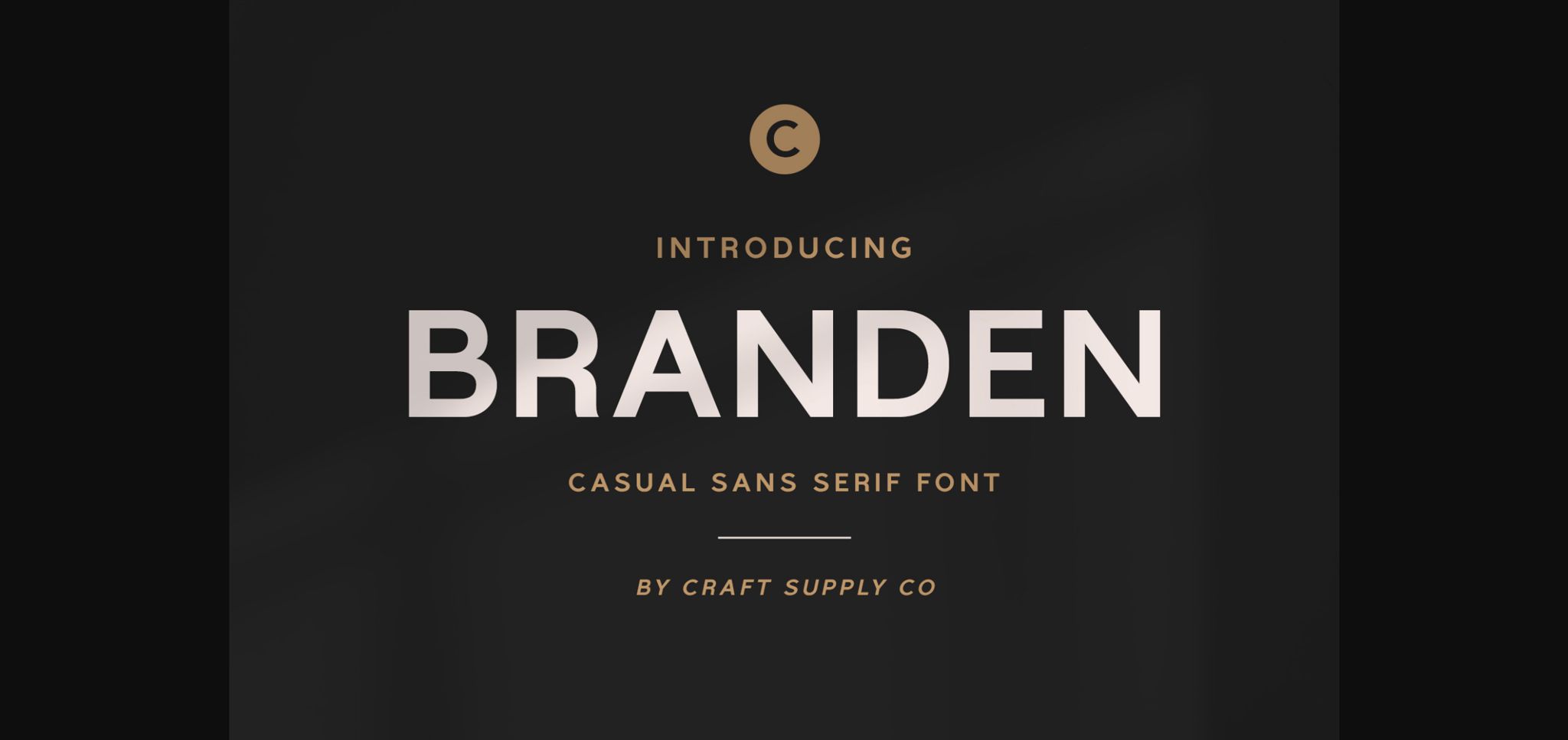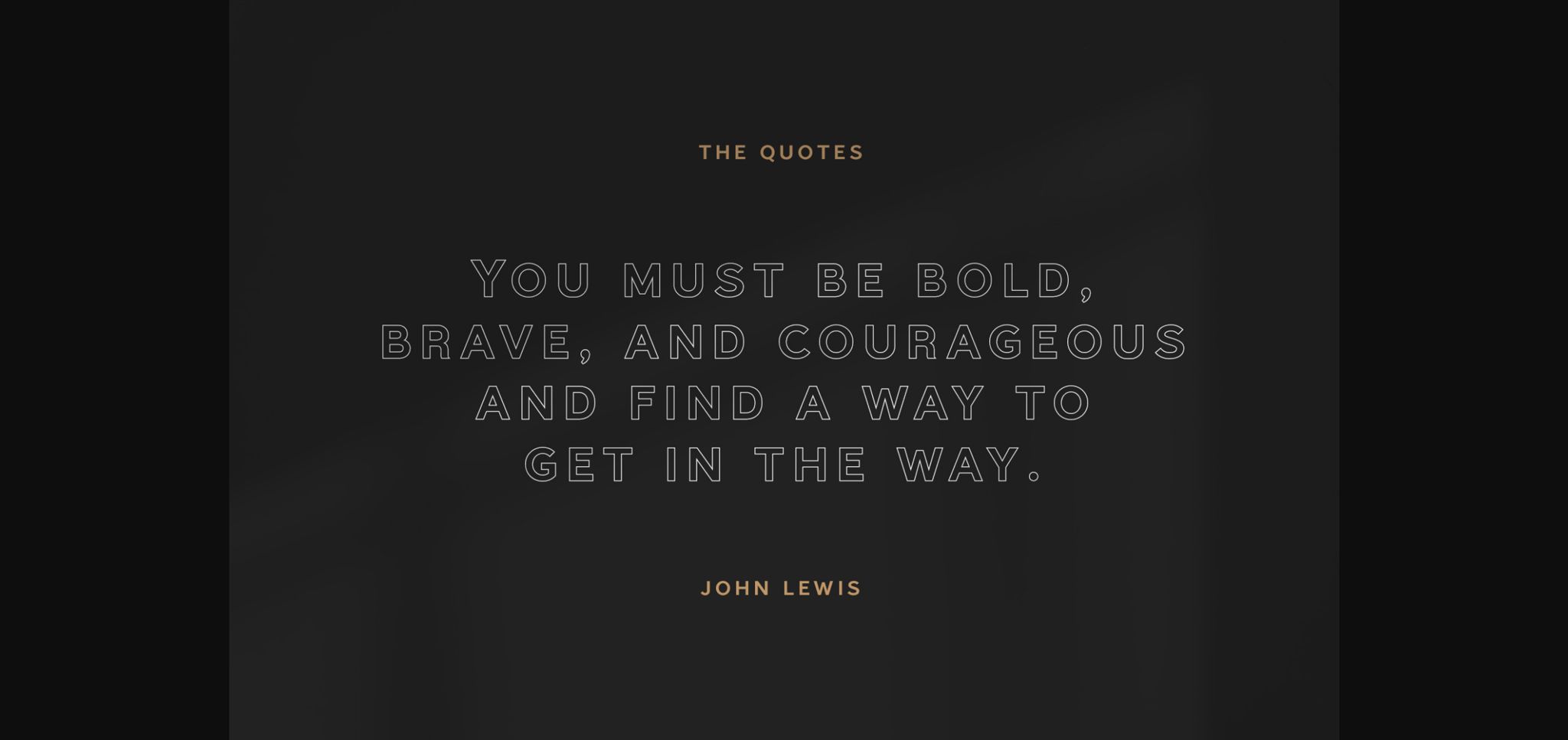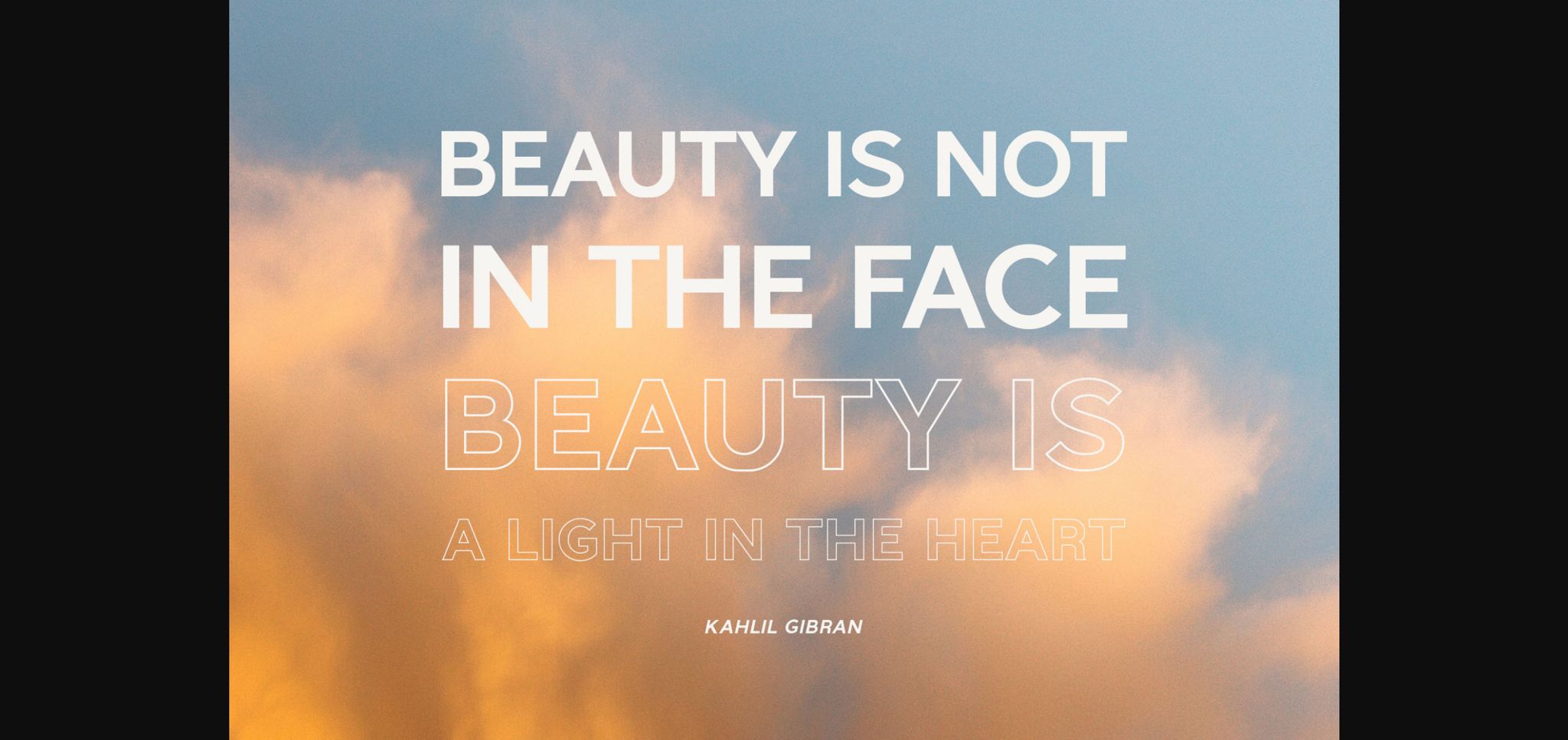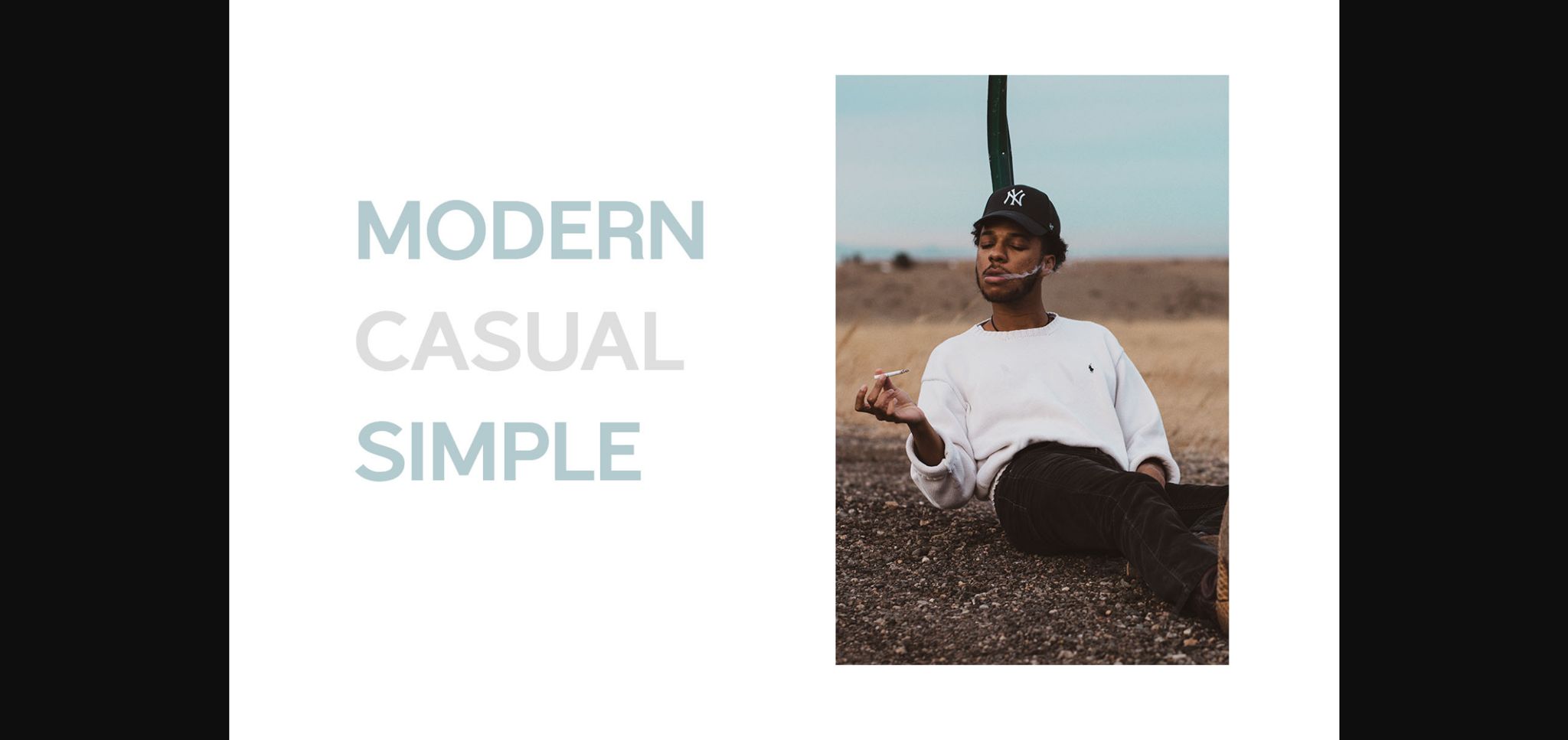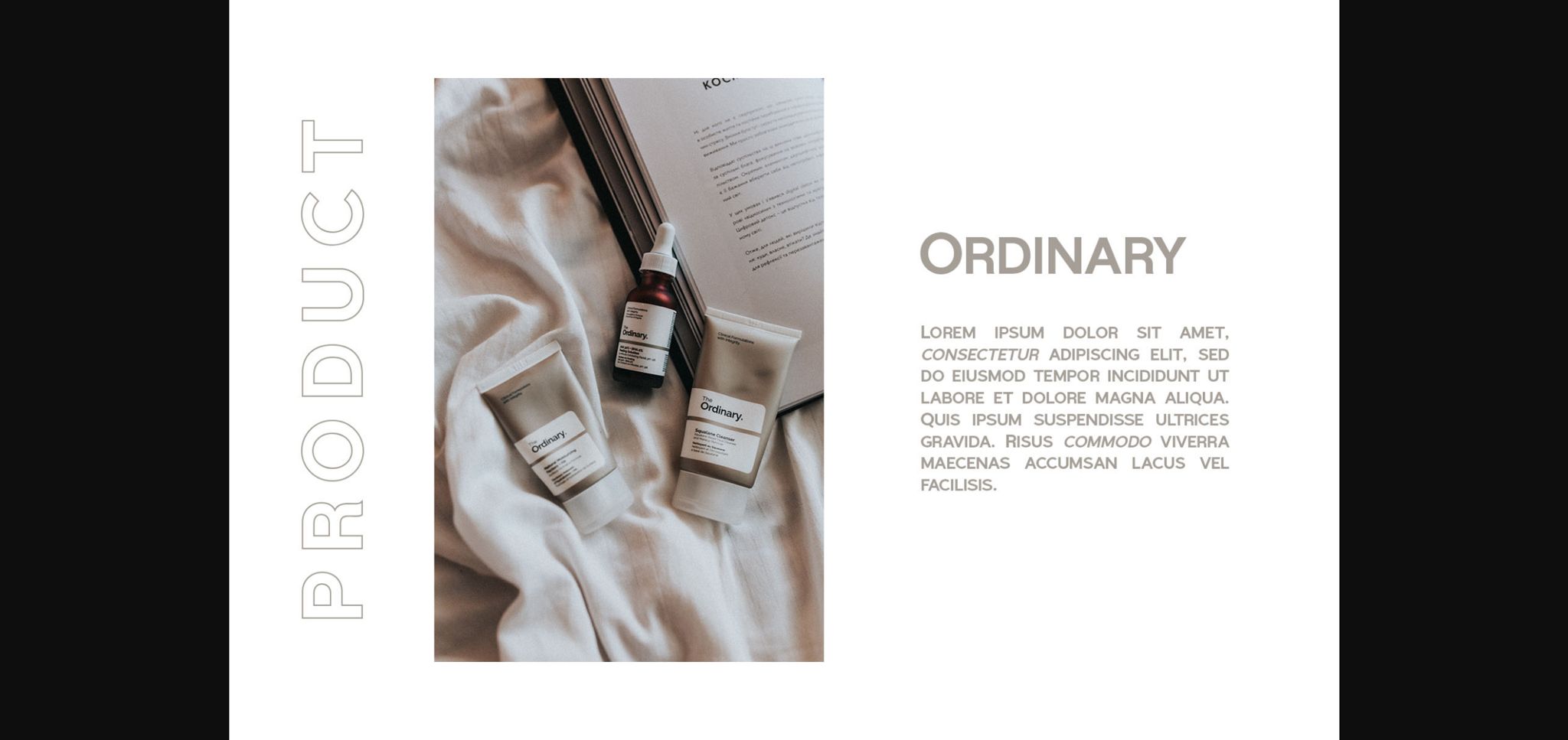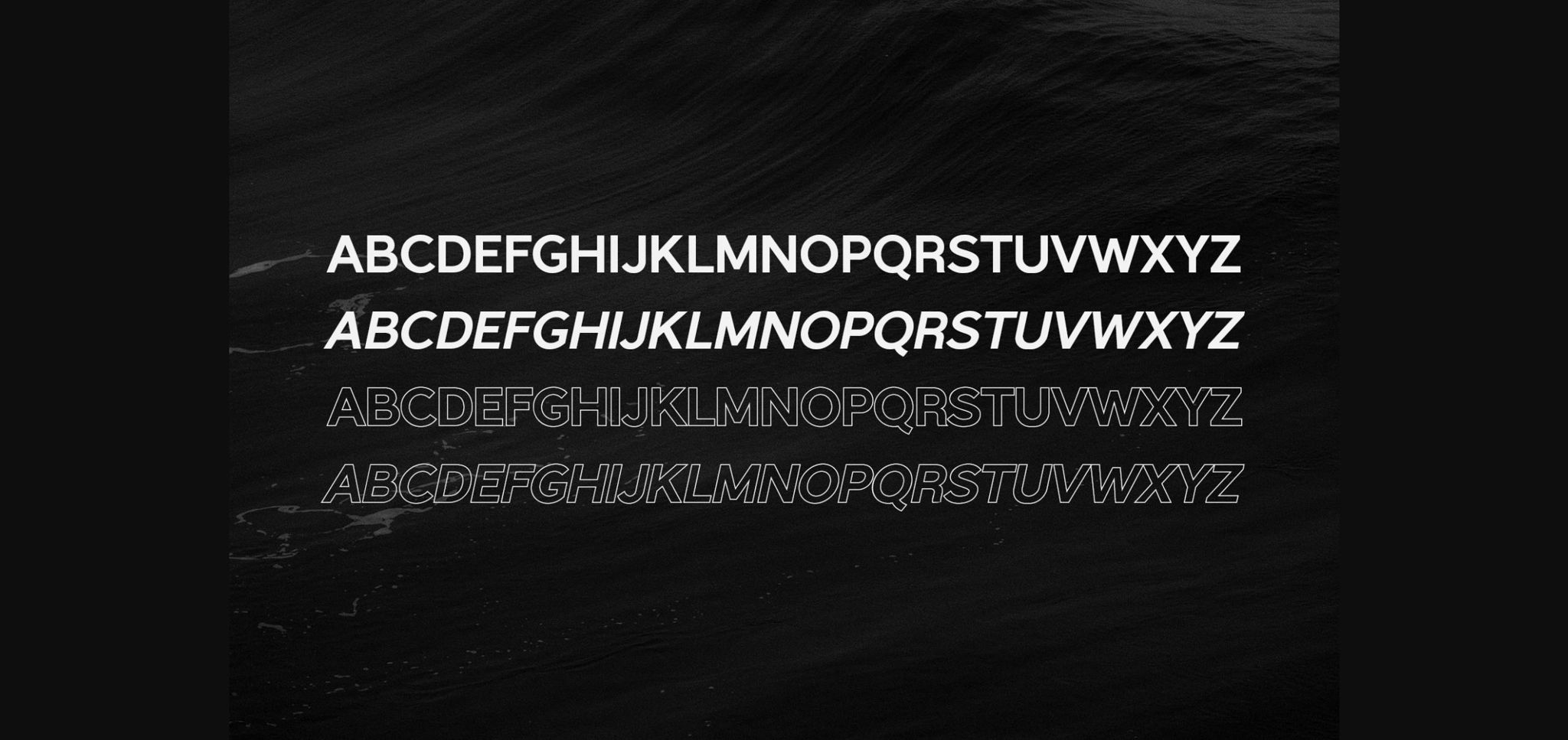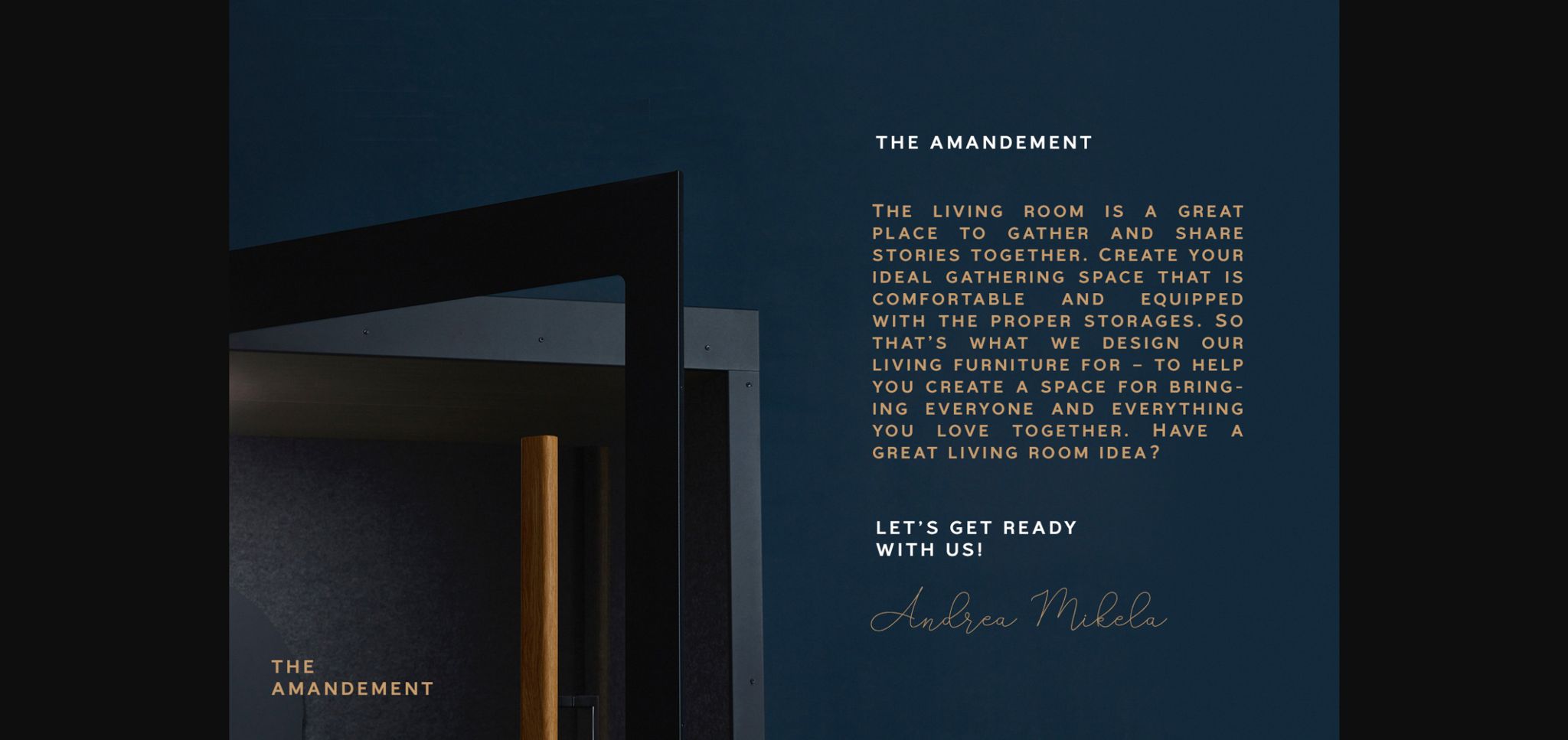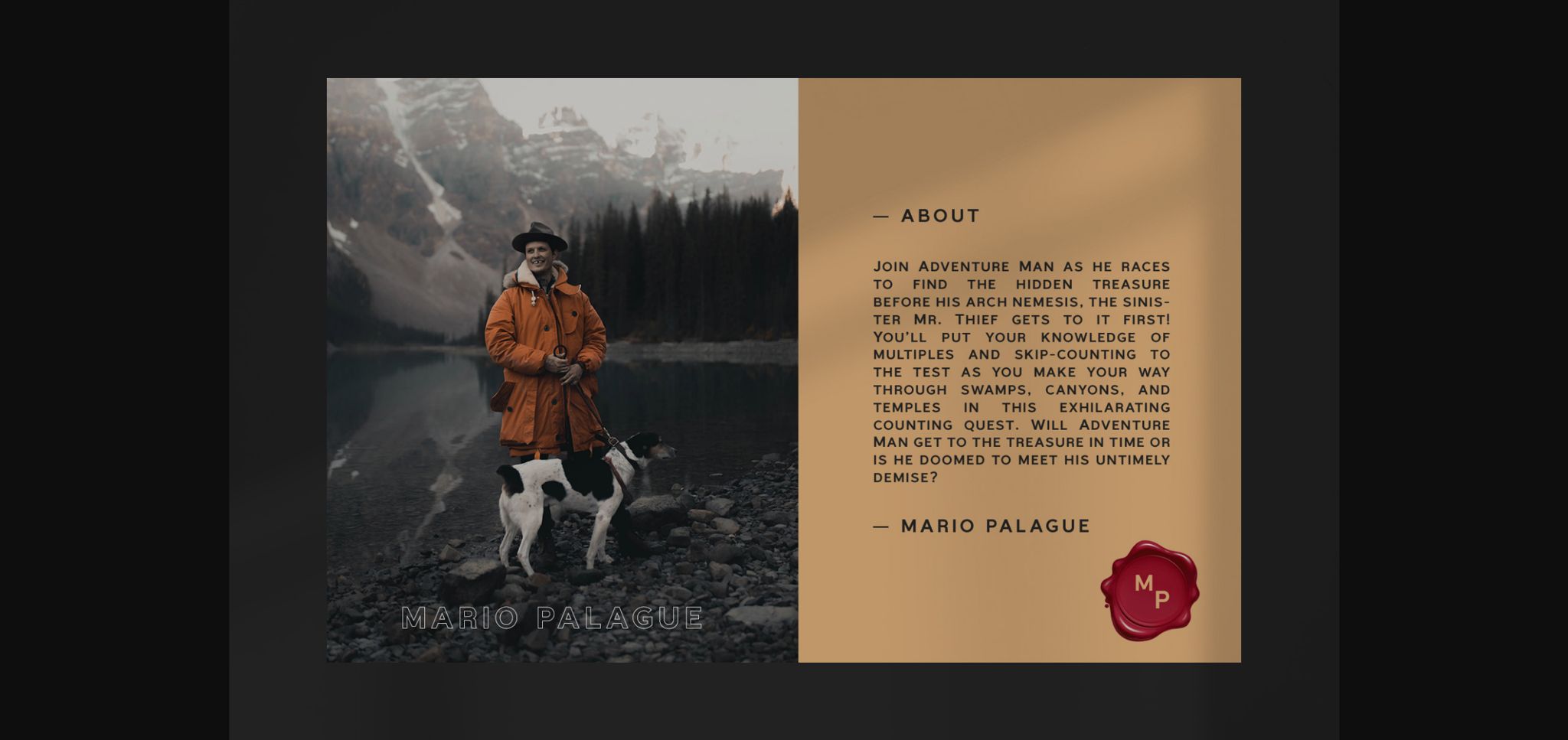
HomeSans Serif FontsBranden Font Sans Serif Fonts Branden Font FacebookXPinterestWhatsApp 1 of 11 ... Branden Font Poster 2... Branden Font Poster 3... Branden Font Poster 4... Branden Font Poster 5... Branden Font Poster 6... Branden Font Poster 7... Branden Font Poster 8... Branden Font Poster 9... Branden Font Poster 10... Branden Font Poster 11... About Branden Font Branden is a simple and casual sans serif font with an undeniably clean feel. With its neat and beautiful arrangement of letters, this typeface will look outstanding in both formal and non-formal designs. DOWNLOAD NOW People also explored Hipparchus Savattera Font Sakulathi Font Artisinal Dorothy Font Veonika Font Emely Brown Font Squadwife Font Vertical Brushy Font 279 0 TagsBrandenBranden Font Previous articleEvrim FontNext articleGreat Month Font LEAVE A REPLY Cancel reply Comment: Please enter your comment! Name:* Please enter your name here Email:* You have entered an incorrect email address! Please enter your email address here Website: Save my name, email, and website in this browser for the next time I comment. Personal Use Free Miss Love Personal Use Free Read more about this font Cherry Ai Personal Use Free Read more about this font Rollayka Personal Use Free Read more about this font Jelly Fish Personal Use Free Read more about this font BLOG Free Fonts Risk: Why Free Fonts Can Be Dangerous for Designers Free Fonts Risk: Why Free Fonts Can Be Dangerous for Designers Using free fonts is a common practice in web and graphic design. However, the... How to Install and Use Fonts on Windows, macOS, and Web Projects Free vs Paid Fonts: Why Investing in Premium Fonts Is Worth It Transform Your Website: Elevate Your Typography with 7 Best Web Font Generators